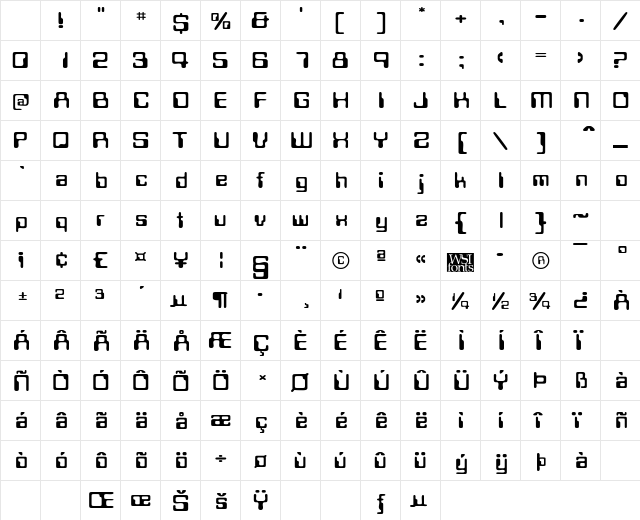
MagneticCardWide Regular Free Font
MagneticCardWide Regular
MagneticCardWide Family
MagneticCardWide Regular
MagneticCardWide Regular Font Preview
MagneticCardWide Regular Uppercase Preview
MagneticCardWide Regular Lowercase Preview
MagneticCardWide Regular Numeric Preview
MagneticCardWide Regular Character Map
Complete MagneticCardWide Regular glyph index. Displaying only characters natively supported by MagneticCardWide Regular font.
MagneticCardWide Regular Character Map
Design Context for MagneticCardWide
MagneticCardWide is a composed and adaptable typeface that performs quietly and consistently across a wide range of design contexts.